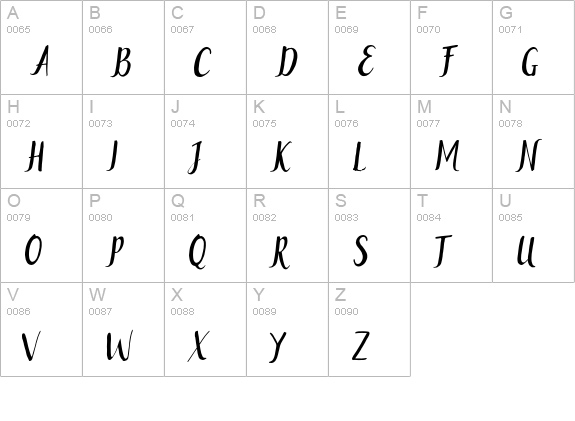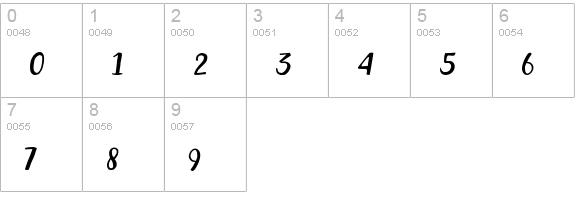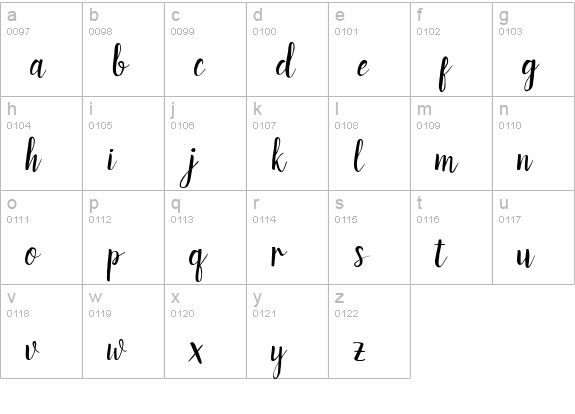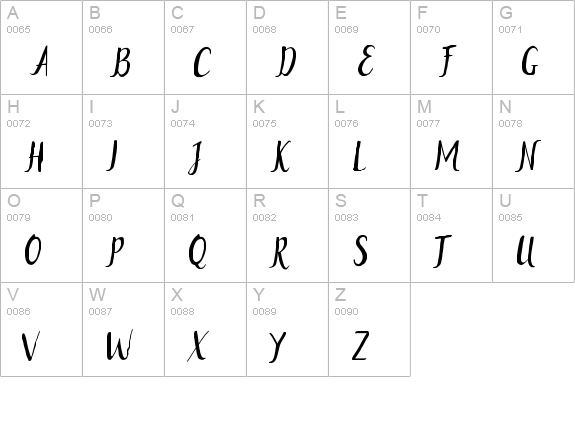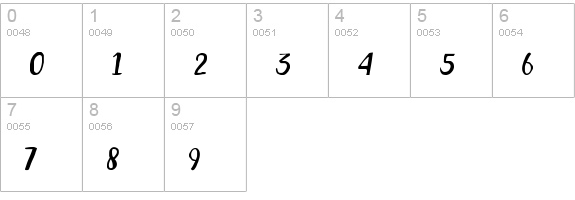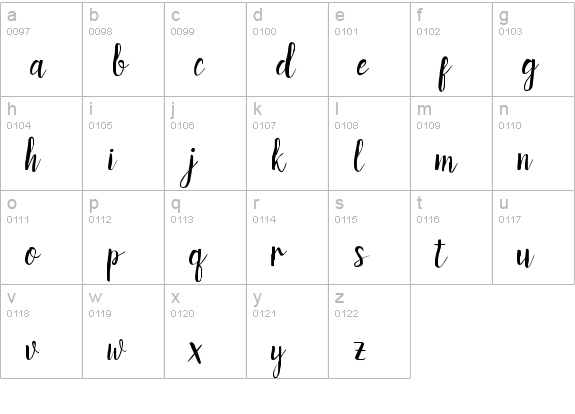
Rachelle Font Details
Rachelle font is a stunning and versatile typeface that exudes elegance and sophistication. With its unique blend of modern and classic design elements, Rachelle font is perfect for a wide range of projects, from branding to editorial design. Its graceful curves and stylish details make it a standout choice for any creative endeavor. What's even better is that Rachelle font is available for free download at FontsMarket.com, allowing designers and creatives to access this beautiful typeface without any cost. Whether you're working on a personal project or a professional assignment, Rachelle font is sure to elevate your designs and bring a touch of refinement to your work. Download Rachelle font today and experience the beauty and versatility of this exquisite typeface.